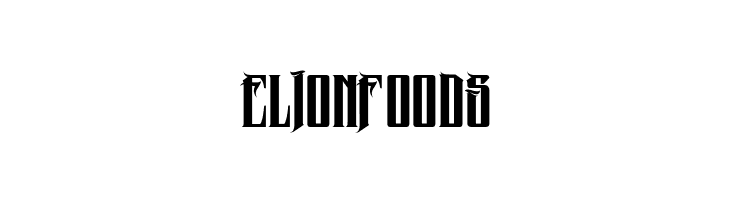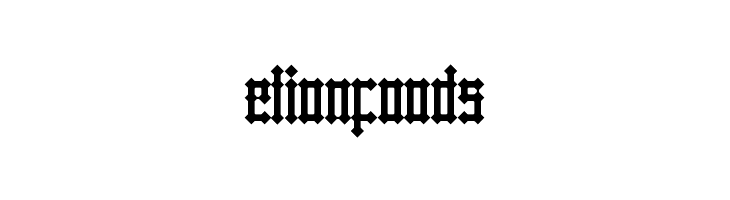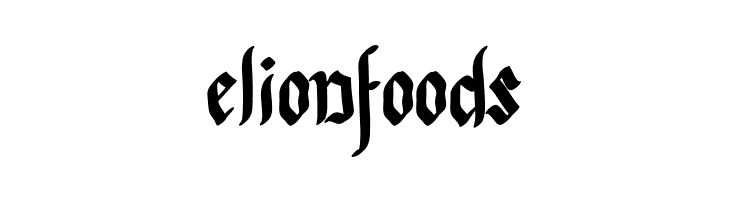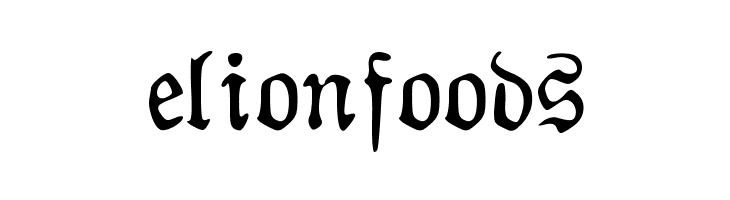
A decorative Blackletter font with ornate, gothic styling.
A classic Blackletter font with intricate, angular strokes and decorative flourishes.
A traditional Blackletter font with intricate detailing and a medieval flair.
A dramatic Blackletter font with intricate curves and sharp angles, exuding classic sophistication.
A bold, ornate blackletter font with a medieval flair.
An ornate blackletter font with intricate flourishes and bold strokes.
A bold blackletter font with intricate Gothic detailing.
A bold, blackletter font with sharp, angular lines and medieval flair.